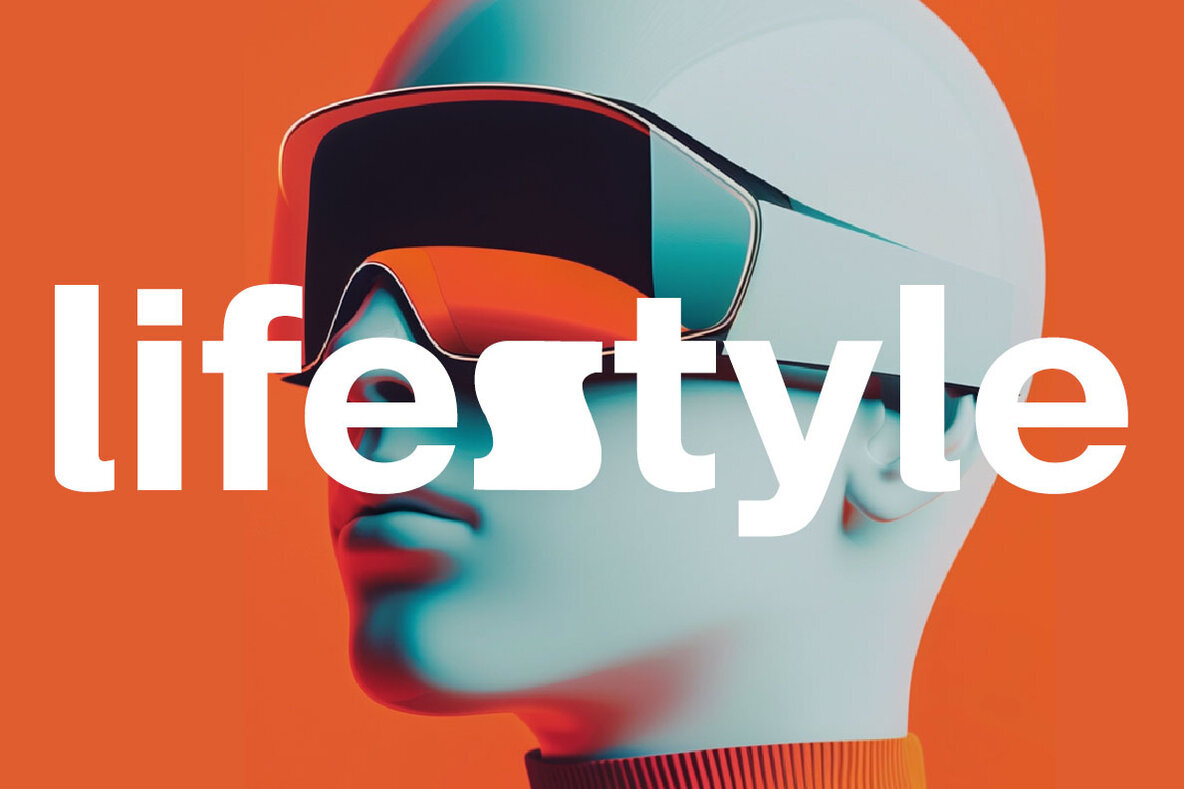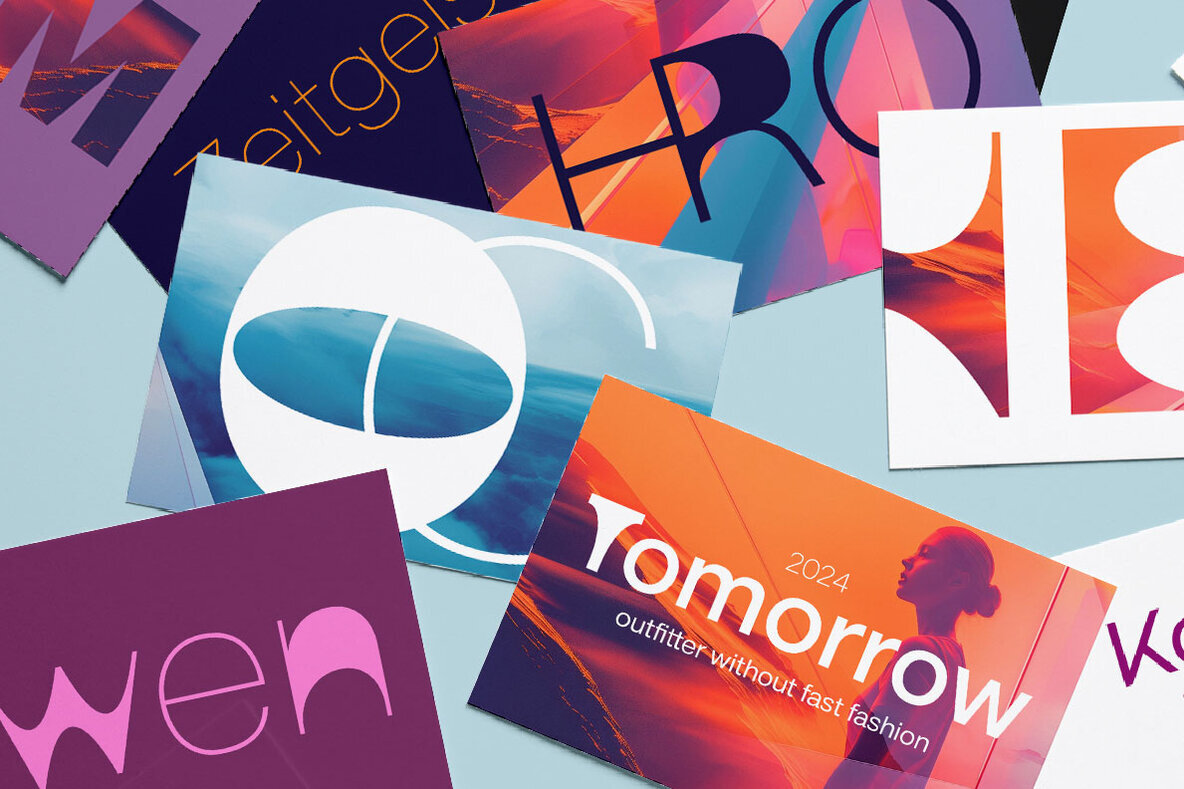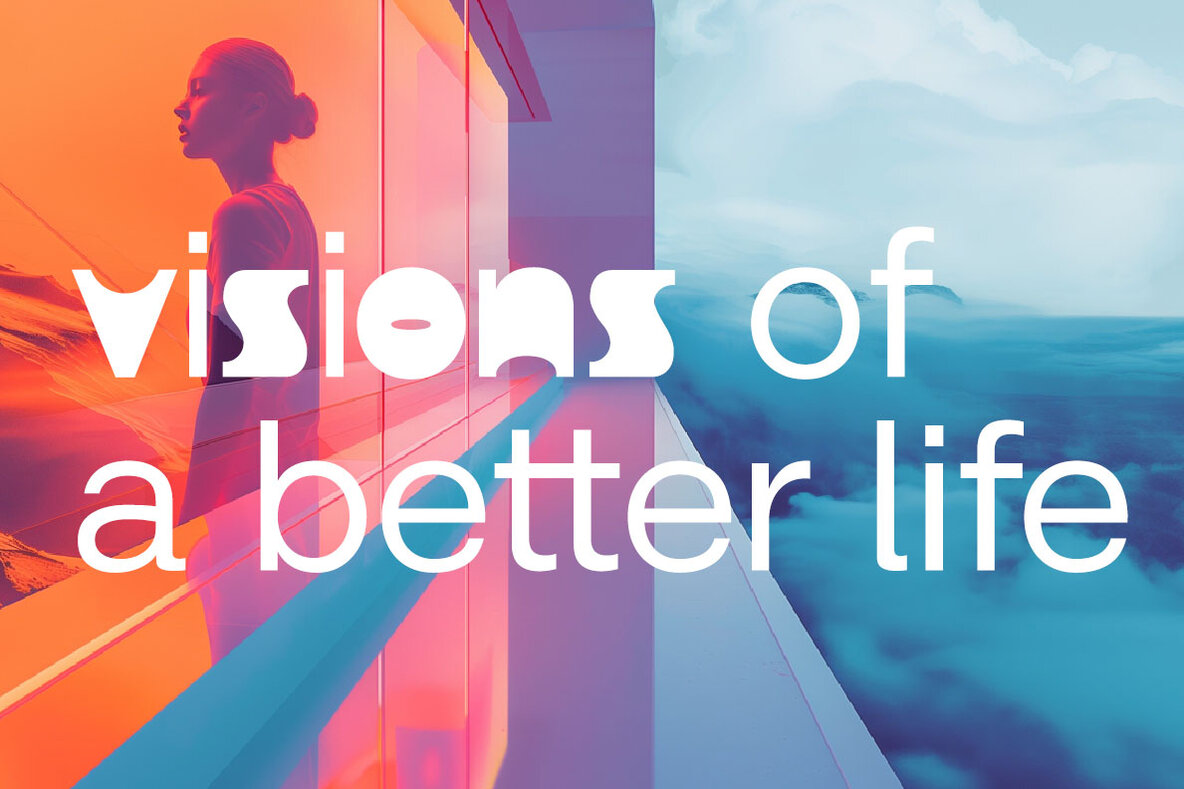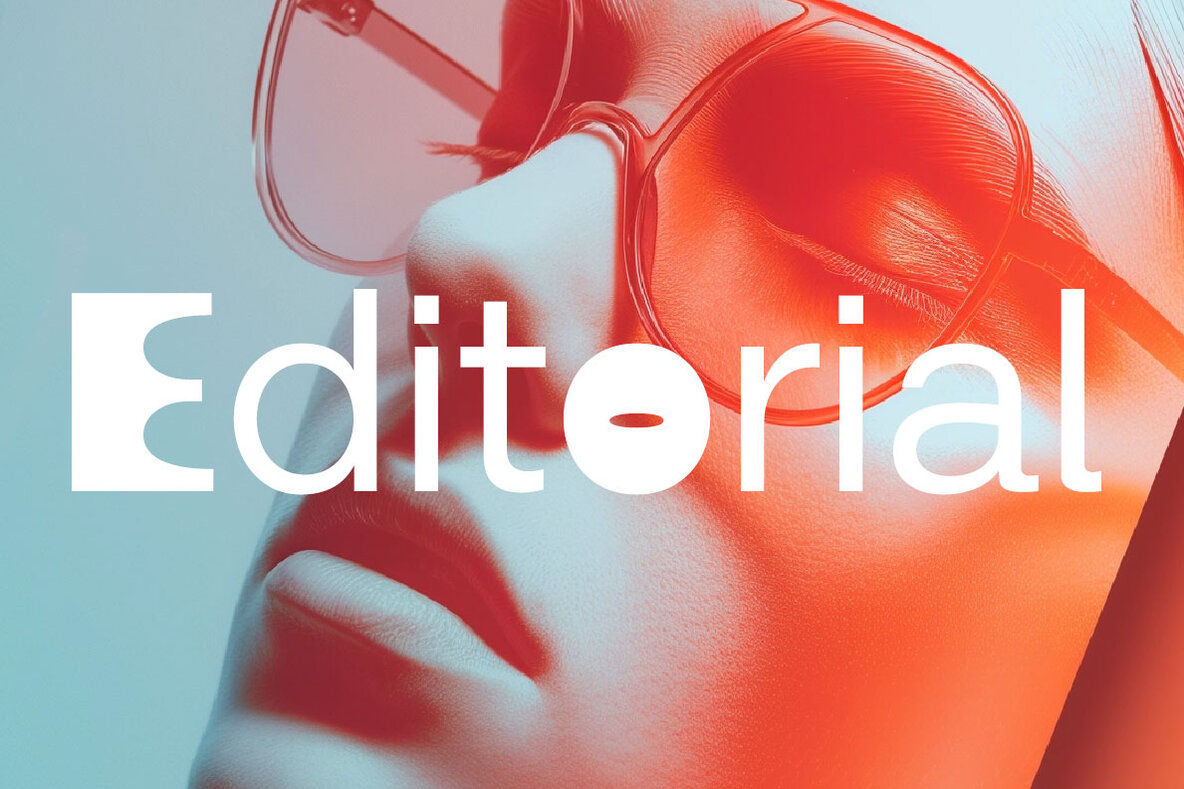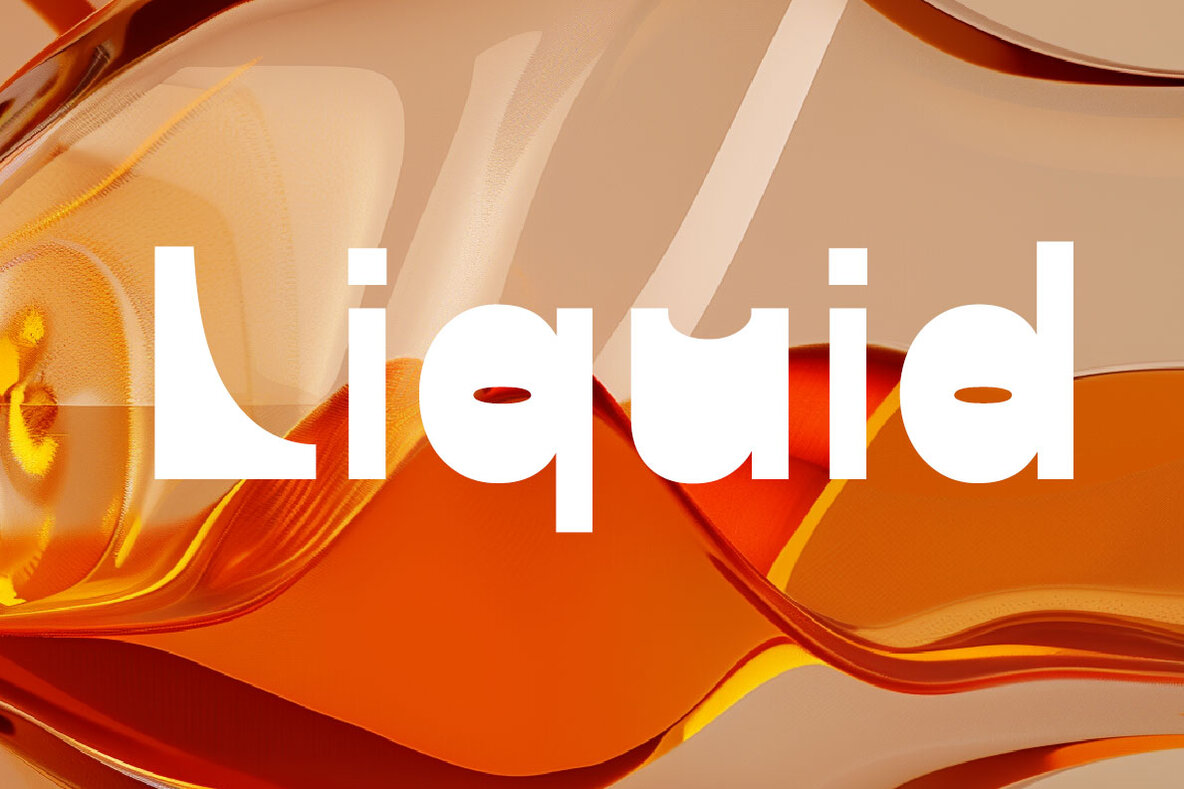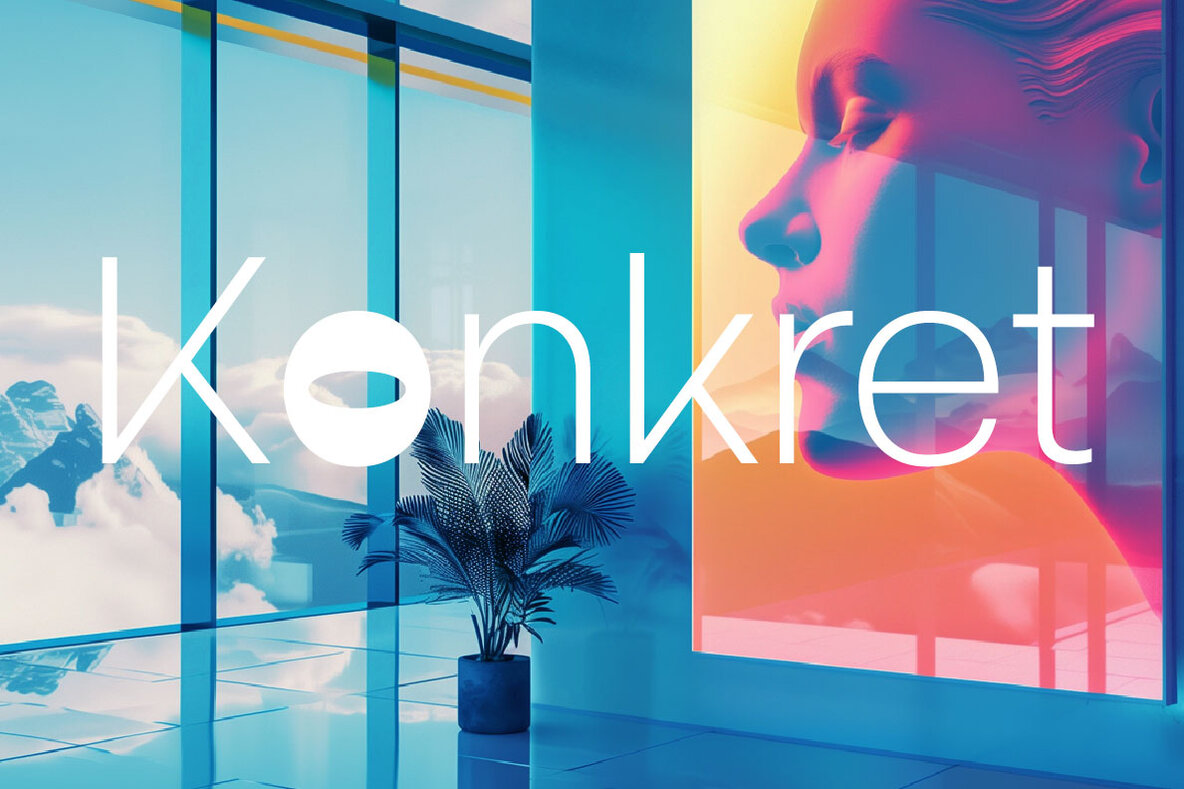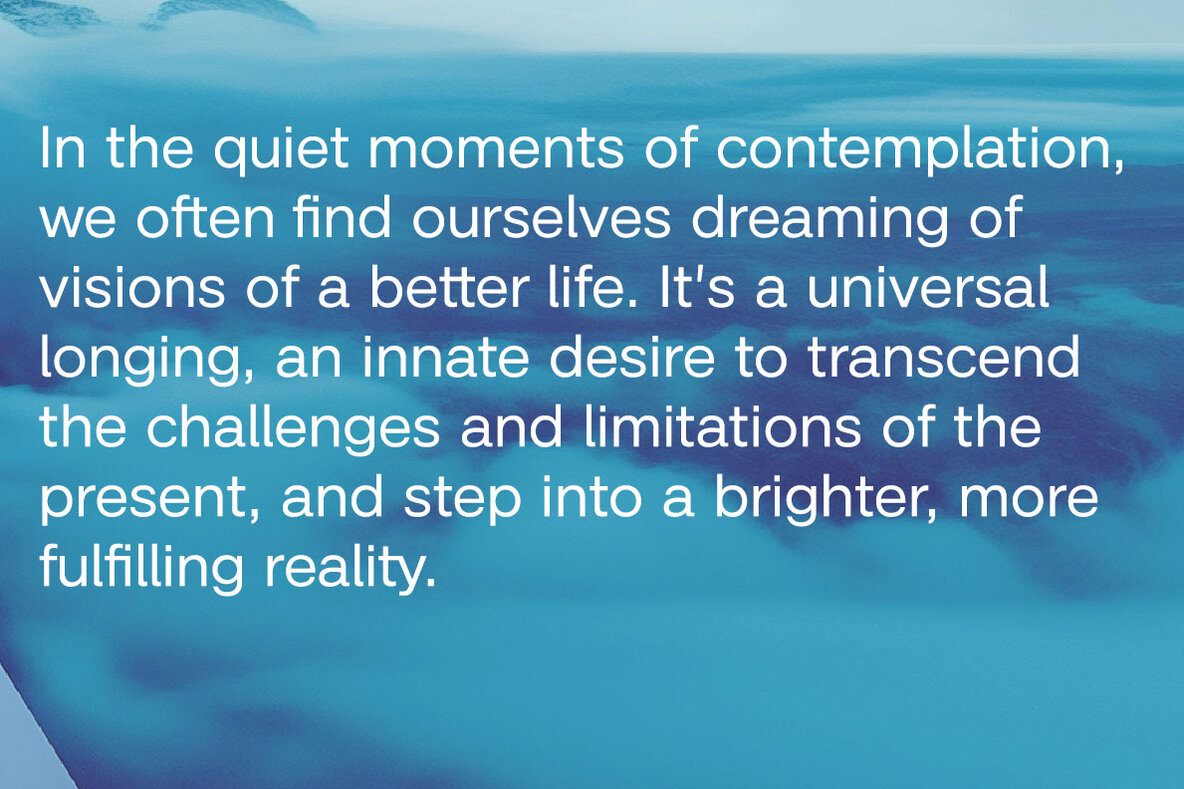
Neo Grotesk Font
Neo Grotesk is an attempt to create a dual typeface system in different weights. The basis is a modern, factual sans serif in the style of a New Grotesque, while the second typeface variant builds on the basic form of the first and varies the shapes with curves, similar to a "blur effect". The combination of these two basic types opens up endless design possibilities in a futuristic style to meet the different requirements of design projects.
Neo Grotesk is available in two versions: either as a classic dual font family with 18 different weights or as a variable font.
As a tool for visionary creatives in areas such as branding, editorial and fashion design, Neo Grotesk may provide a platform to push conventional boundaries and develop innovative, forward-thinking design solutions.